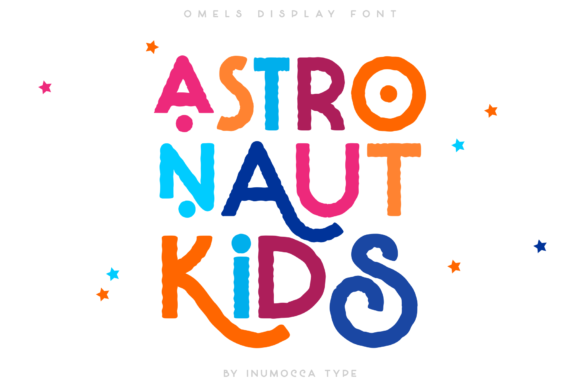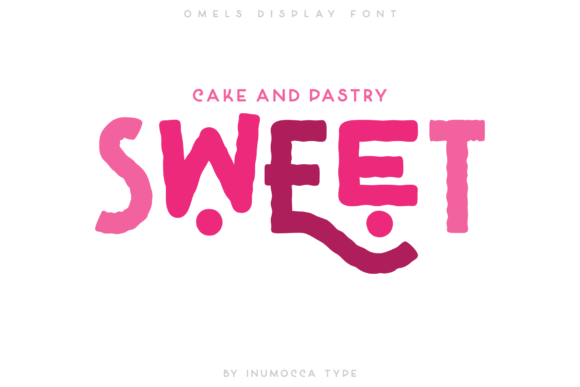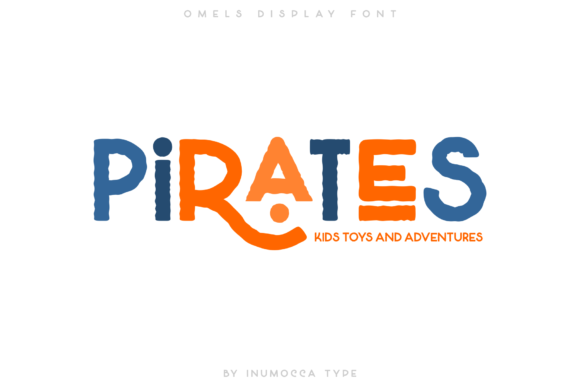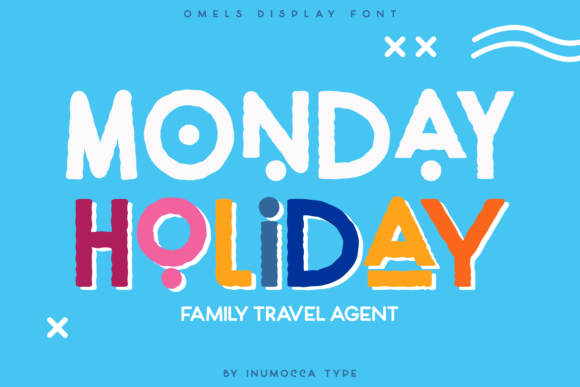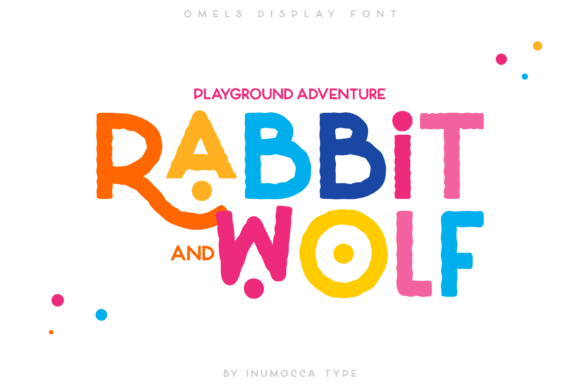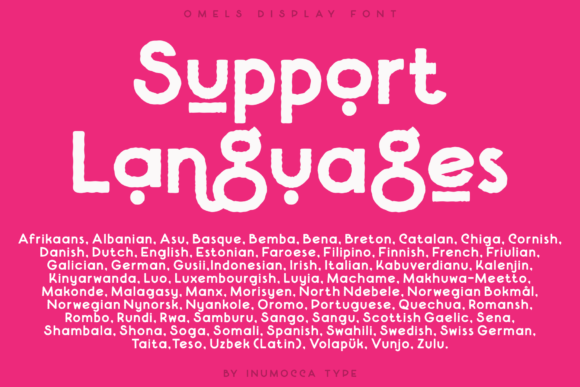
Introduction to Omels Font
Omels Display Font has fun and joyful characters together with strong and dynamic accents.
It is an excellent typeface for projects like Branding, Movie Title, Headline letters, Book covers or Book Content, Magazine covers, Posters, Quotes Lettering, Logos, and many others .
Key Features of Omels Font